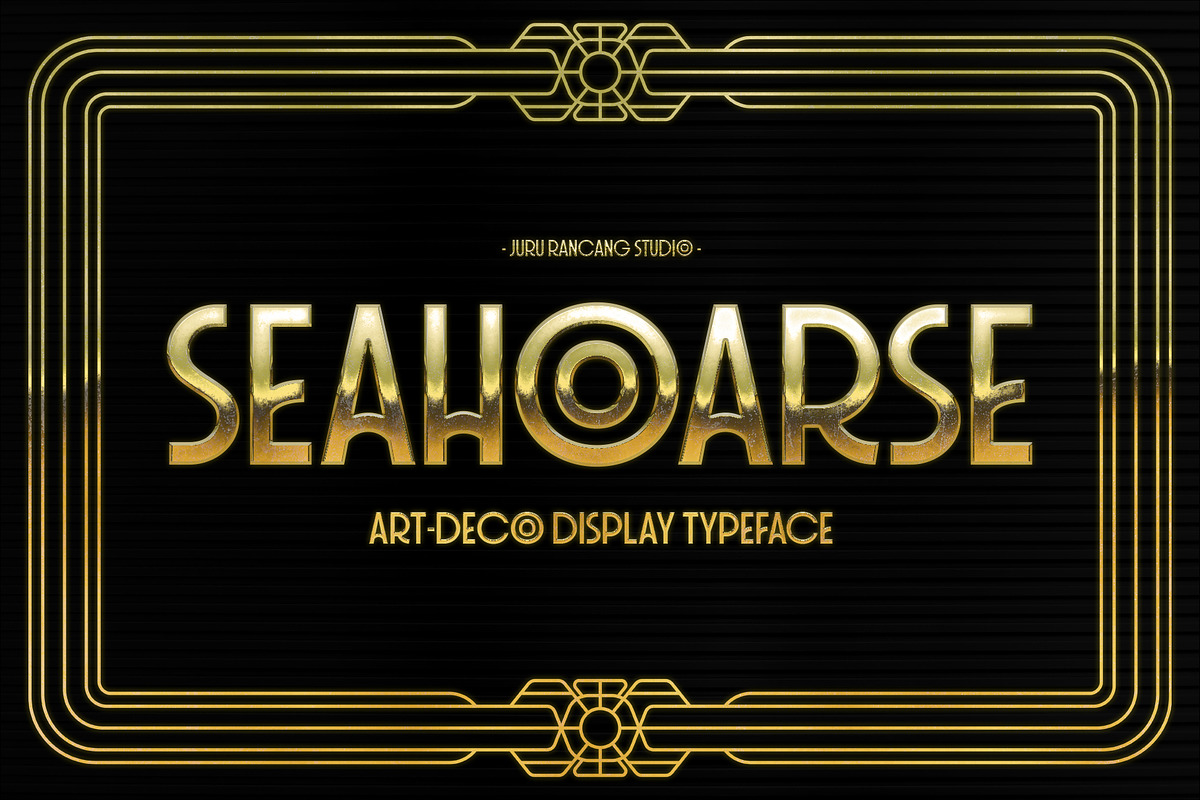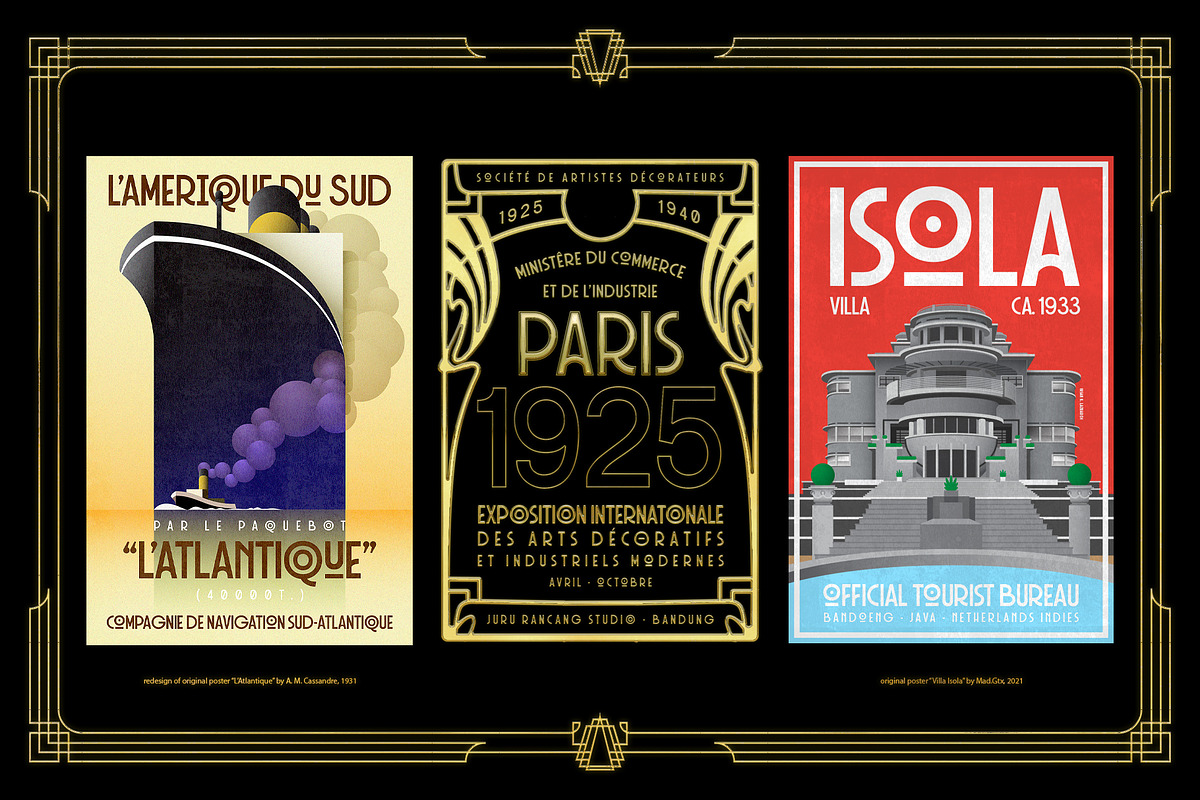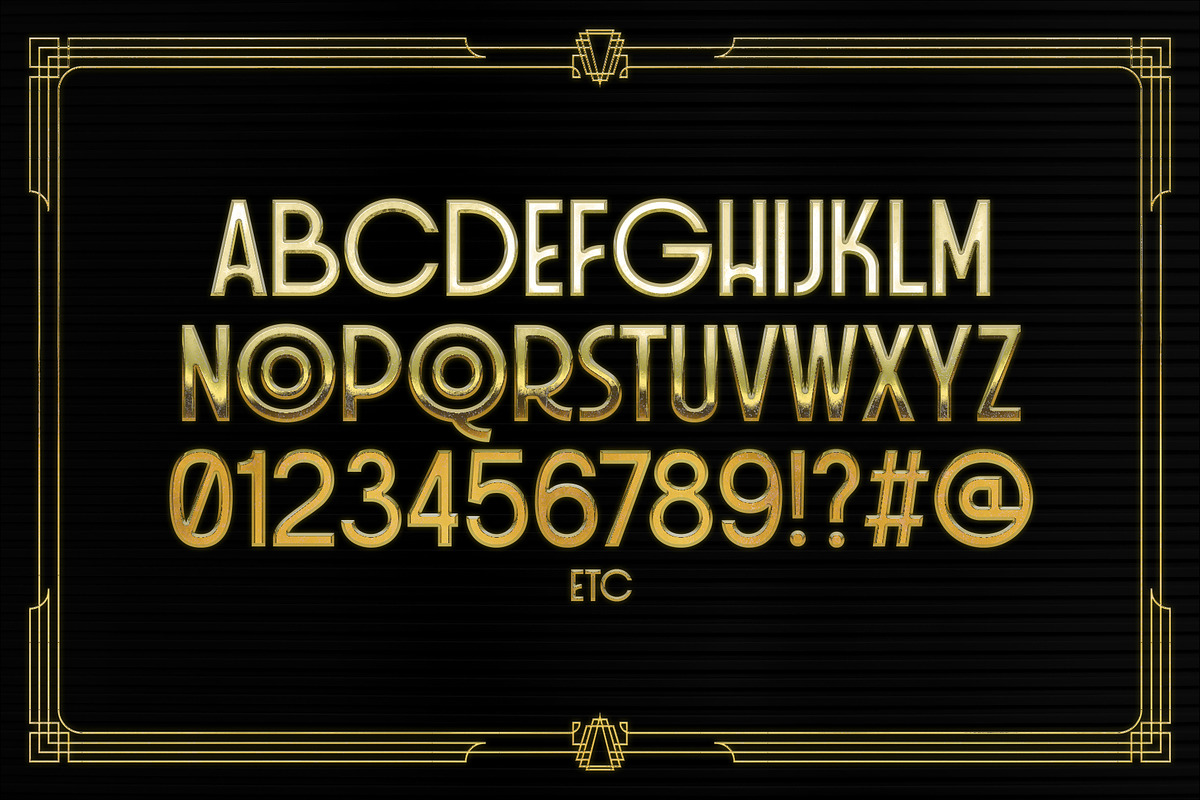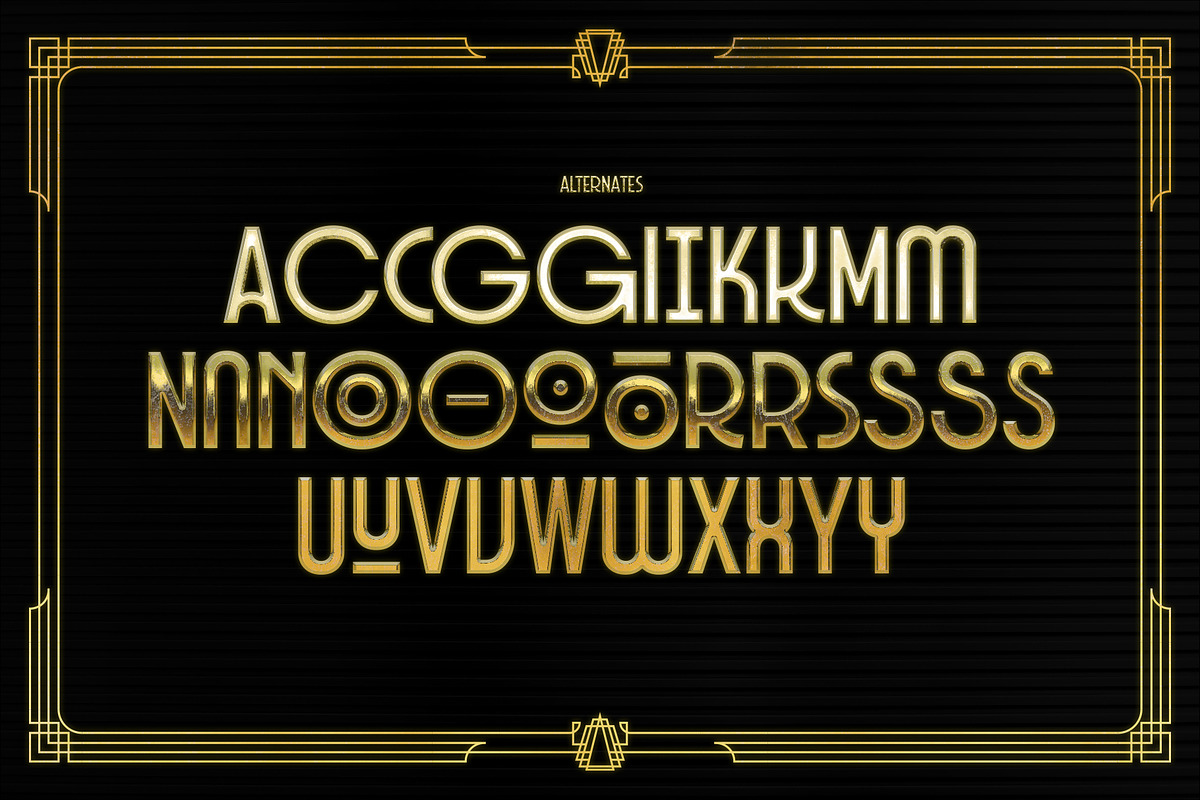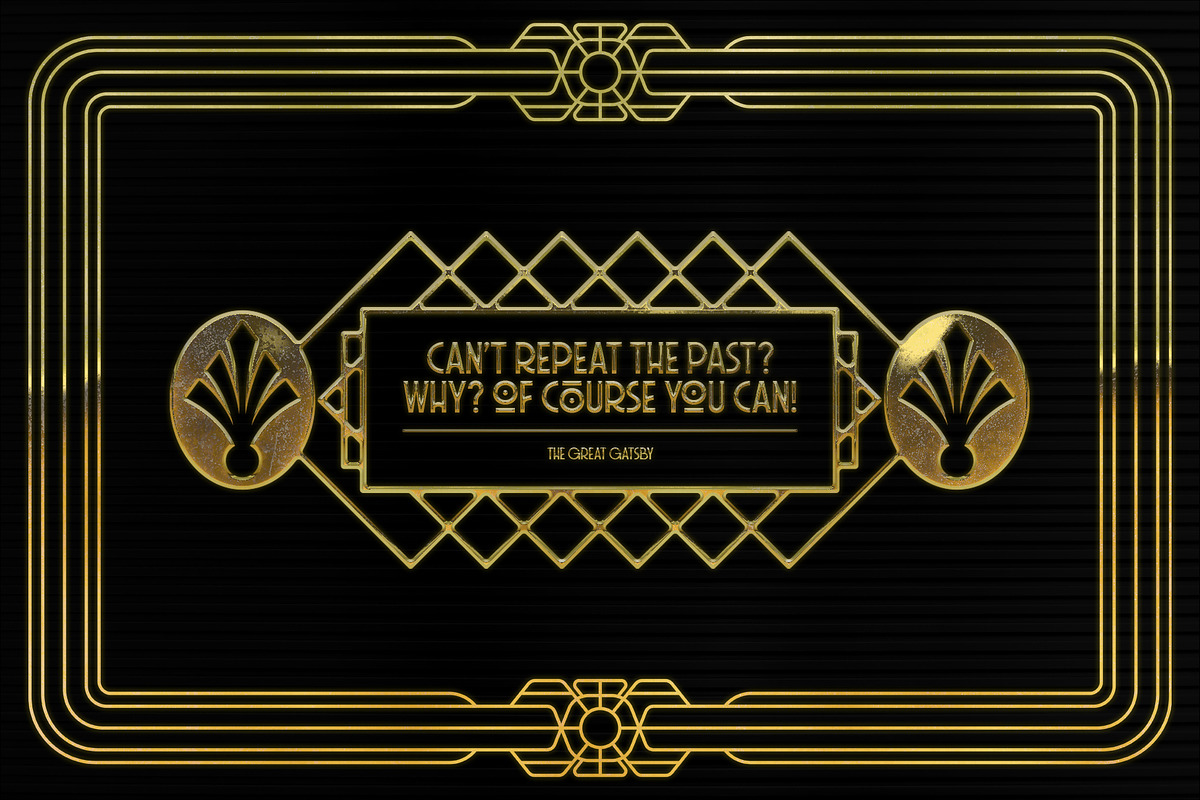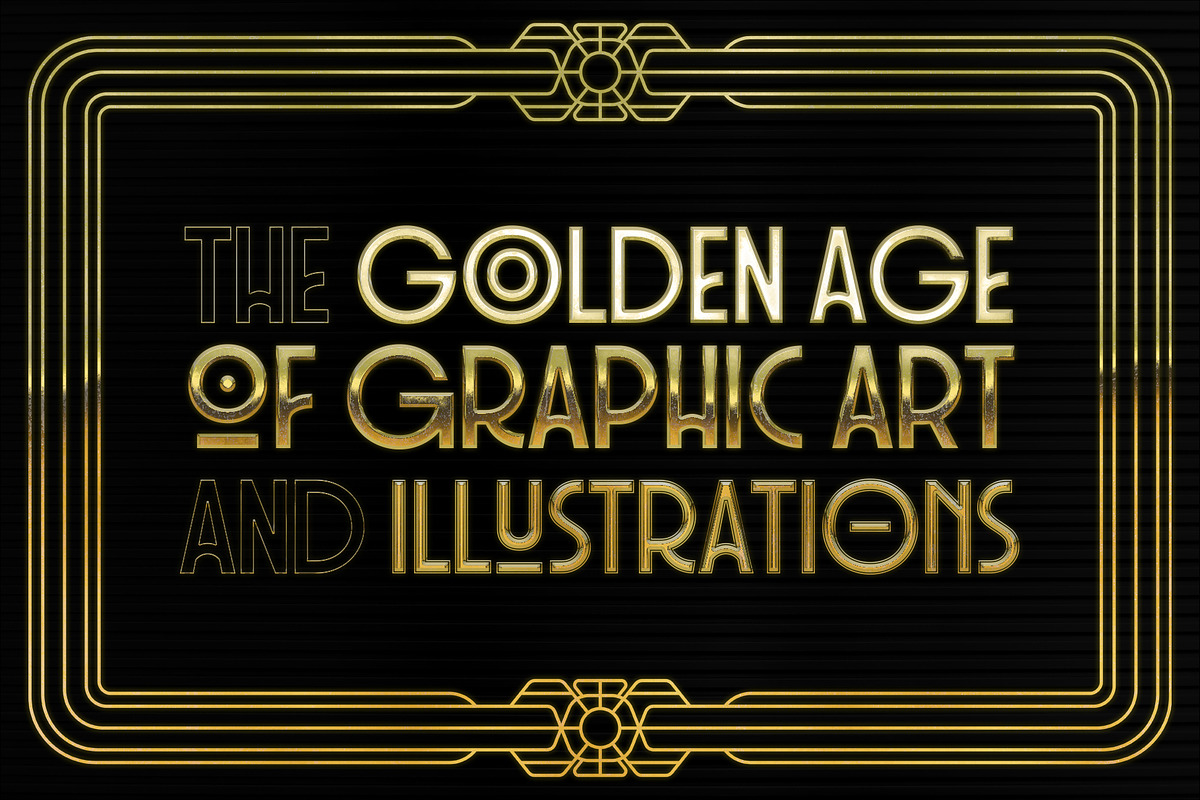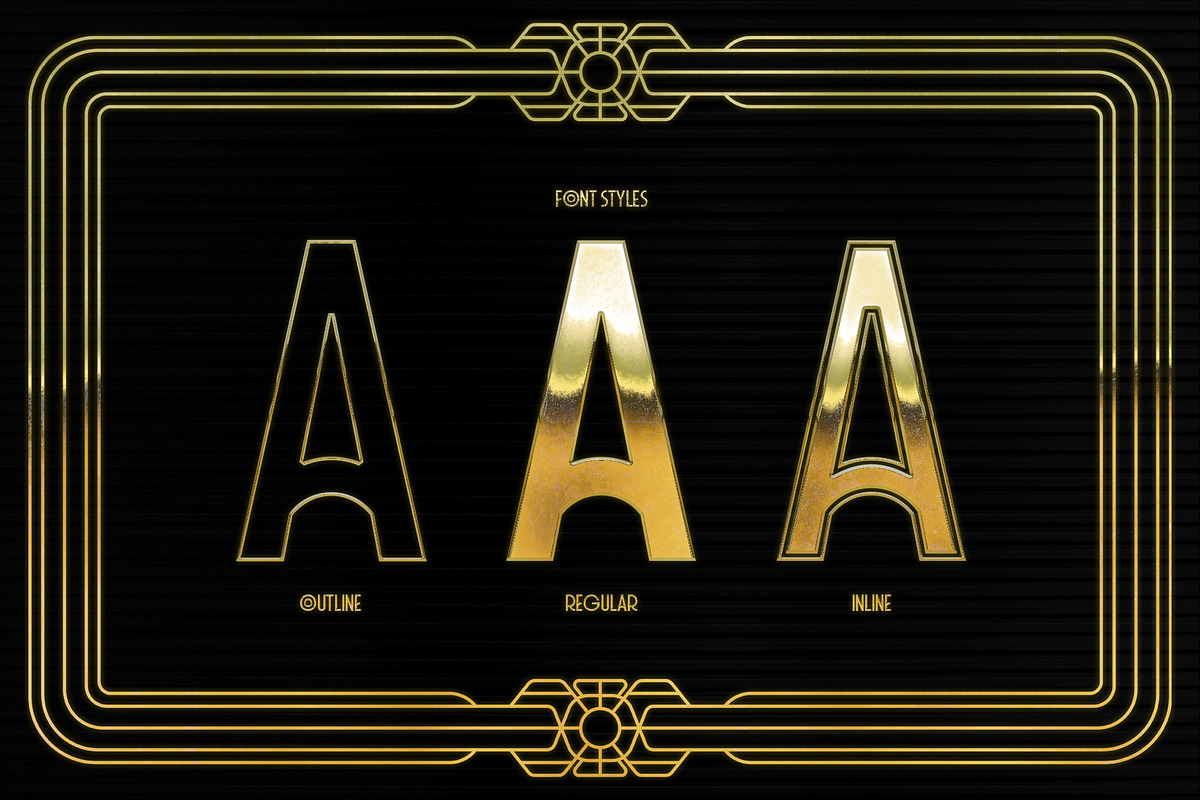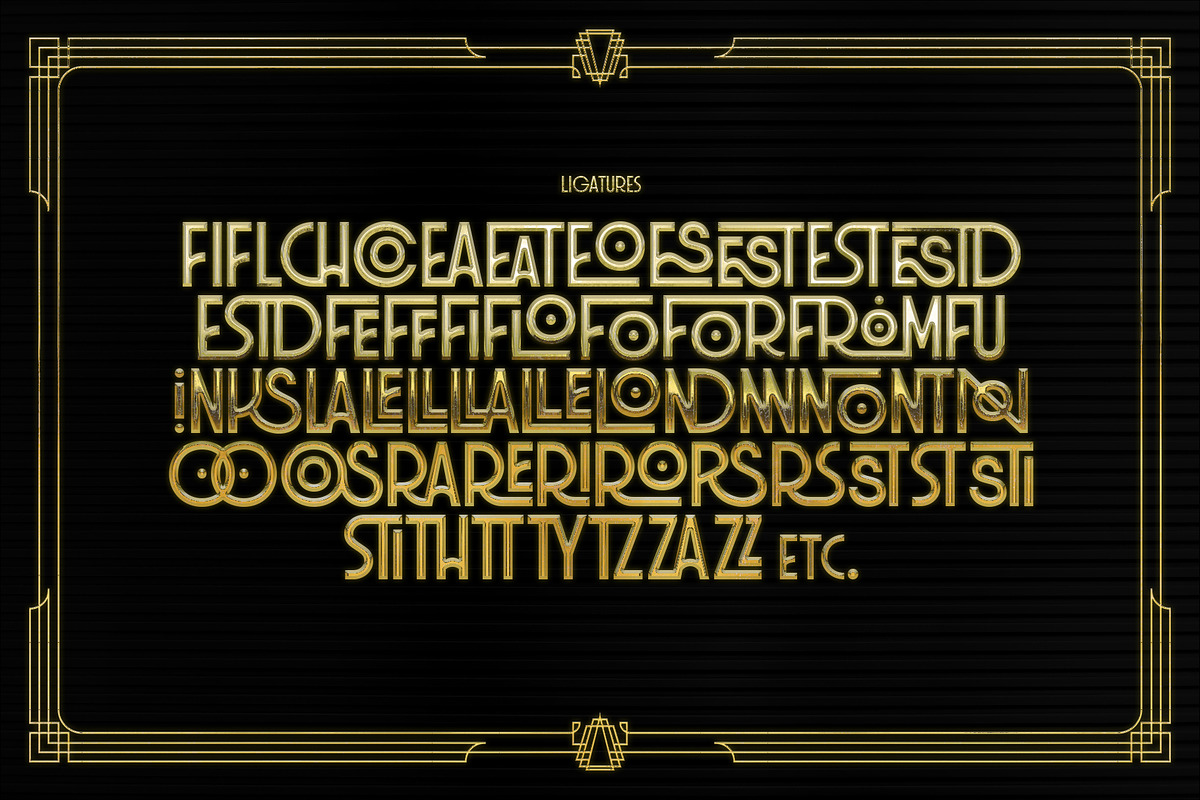
Seahoarse Art Deco Display Fonts
Seahoarse - Art Deco font pack contains 3 fonts
Seahoarse is Art Deco (Moderne) Display Font Family with 3 styles inspired by the design of buildings, furniture, jewelry, fashion, cars, movie theatres, trains, ocean liners. Built with geometric and circular forms, Seahoarse’s styles are unified by a celebration of the future, glamour, elegance, an emphasis on functionality, and an embrace of bold new ideas. It includes uppercase, lowercase, multilingual letters, numbers, punctuation, various alternate styles and a bunch of discretionary ligatures.